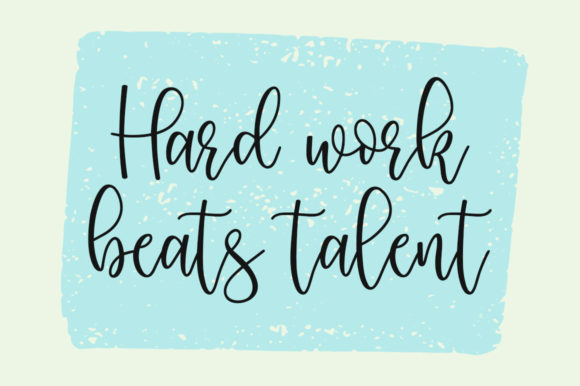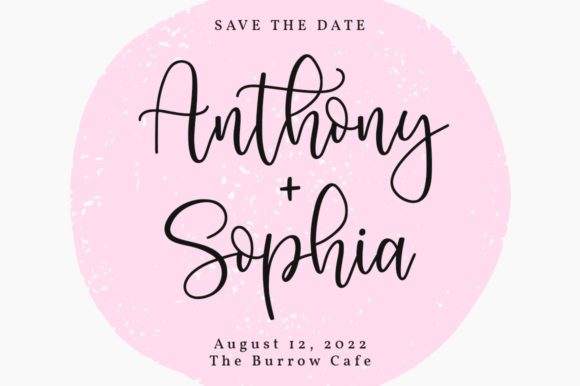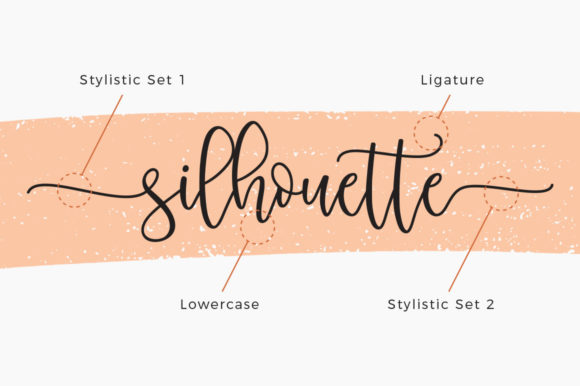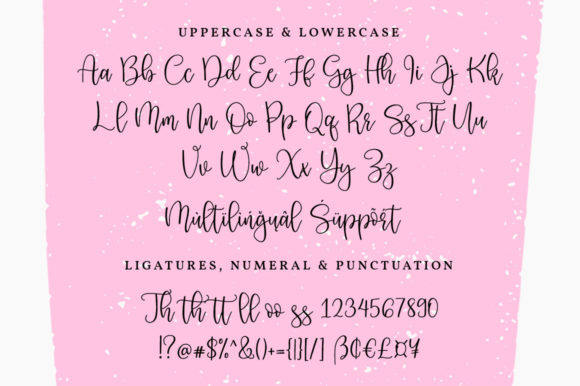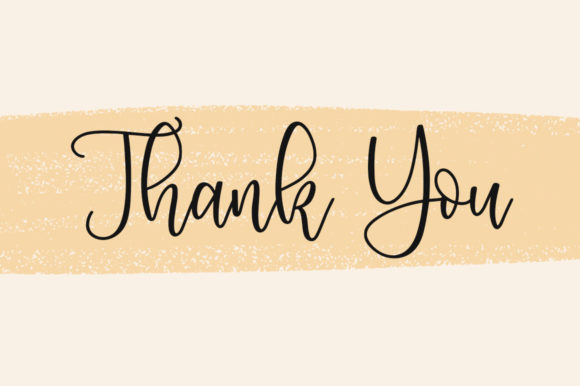
The Magic of Handwritten Typography
Have you ever been in a moment where you’re brainstorming ideas for a special project, and the perfect font just pops into your head? For designers, those ‘aha’ moments are a treasure trove of inspiration. For me, it was when I stumbled upon the Adorable Font, a modern calligraphy font that brought a touch of elegance to my designs.
The Adorable Font is a versatile tool that’s perfect for logos, wedding stationery, cards, gift designs, photography, watermark, product packaging and handwritten quotes. Its smooth flows and PUA encoded glyphs make it a breeze to use, allowing designers to access all the swashes and characters they need to create stunning visuals.
Whether you’re a seasoned designer or just starting out, the Adorable Font is a valuable addition to your toolkit. Its unique charm and versatility make it an essential font for any creative project, and its ease of use means you can focus on what matters most – bringing your vision to life.
Key Features of Adorable Font
- Character Set: This font includes a vast character set, including uppercase and lowercase letters, numbers, punctuation marks, and special characters, making it suitable for various types of text.
- Unique Characteristics: The Adorable Font features a playful, cursive script style with rounded edges and soft lines, making it perfect for creating a friendly and approachable atmosphere in designs.
Adorable Font Review
Overall, I think Adorable Font is a cute and playful choice for any project that needs a whimsical touch. Here are some things that I think work well:
- ✨ The font is super versatile and can be used for a wide range of applications, from headings to body text.
- ✨ The font is highly customizable, allowing users to adjust the size, color, and spacing to suit their needs.
- ✨ The font is easily readable, even at smaller sizes, making it a great choice for digital projects.
- ⚠️ The font may not be suitable for projects that require a more formal or professional tone.
- ⚠️ The font can be a bit too playful for some projects, and may not convey the right message.
- ⚠️ The font may not be optimized for use in certain languages or character sets.
Overall, I think Adorable Font is a solid choice for projects that need a playful and whimsical touch. While it may not be the best choice for every project, it’s definitely worth considering for those that need a bit of personality.
Tips for Getting the Most Out of Adorable Font
Here are some tips to help you get the most out of Adorable Font:
- Experiment with different font styles and sizes to find the perfect combination.
- Use Adorable Font for headings and titles to add a touch of whimsy and personality.
- Pair Adorable Font with other fonts to create a unique and visually appealing design.
- Choose a pastel color palette to complement the font.
- Use Adorable Font for the invitation title, such as “It’s a Baby!”
- Combine with playful illustrations, like baby animals or balloons.
Q: What is the recommended font size for using the Adorable Font?
The recommended font size for using the Adorable Font is between 10pt and 24pt. However, you can use the font at any size you prefer, depending on the design requirements and visual balance of your project.
Q: Is the Adorable Font optimized for digital use?
Yes, the Adorable Font is optimized for digital use, including web, mobile, and print applications. The font includes hinting and kerning to ensure smooth rendering and optimal readability at various sizes and resolutions.